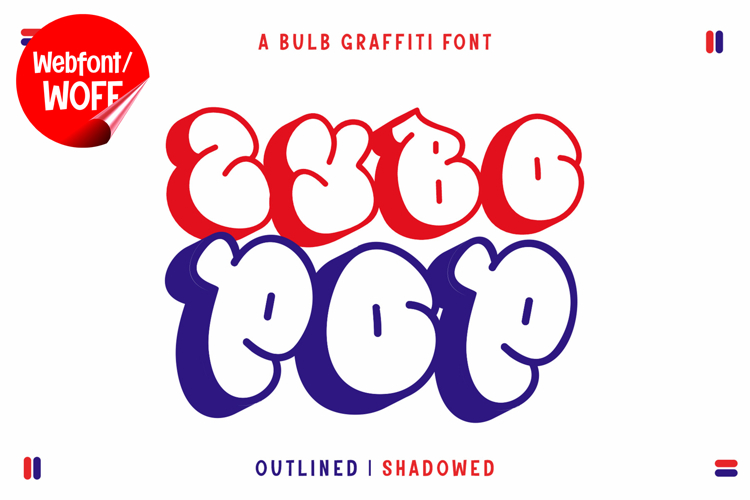
Zybo Pop | 3D Hollow Bubble Graffiti Webfont for Bold Street
Zybo Pop is a 3D hollow bubble graffiti webfont designed to bring bold volume, playful energy, and authentic street style into modern website design. Inspired by classic throw-up graffiti and bubble lettering, this font features rounded shapes combined with hollow 3D effects that create a strong yet lightweight visual appearance. It is an excellent choice for projects that aim to deliver a vibrant, fun, and attention-grabbing typographic identity.
Zybo Pop includes a complete set of uppercase characters designed with bubble graffiti forms enhanced by hollow 3D construction. The rounded shapes give the font a soft and playful look, while the hollow effect adds depth and dimension without overwhelming the design. These characteristics make it ideal for headlines, banners, hero sections, and featured content where strong visual impact is needed.
In addition to letters, the font includes numbers and punctuation, allowing flexible usage across various parts of a website. It works well for streetwear branding, music platforms, creative portfolios, promotional content, and event announcements. Each character maintains a consistent bubble graffiti style, ensuring a cohesive and unified visual identity throughout the layout.
With multilingual support, Zybo Pop includes a wide range of accented characters, making it suitable for international websites and global audiences. This ensures that content remains accessible and visually consistent across different languages while preserving its bold and playful aesthetic.
The 3D hollow bubble graffiti style of Zybo Pop makes it especially suitable for urban-themed websites, youth-oriented brands, gaming interfaces, and creative campaigns. Its lively and dimensional design adds personality and charm, helping websites stand out in visually competitive environments. The hollow structure also allows for flexible color styling and creative layering effects.
Despite its bold and decorative appearance, Zybo Pop is designed with readability in mind. The spacing and proportions are carefully balanced to ensure clarity, particularly in display sizes. This makes it effective for impactful headings and short content elements where both style and usability are important.
Zybo Pop is a webfont that combines graffiti aesthetics with bubble shapes, hollow depth, and modern digital performance. Its rounded forms, dimensional structure, and playful character create a distinctive typographic presence that enhances website design. For projects that require a bold, fun, and visually engaging graffiti font, Zybo Pop offers a unique and versatile solution.